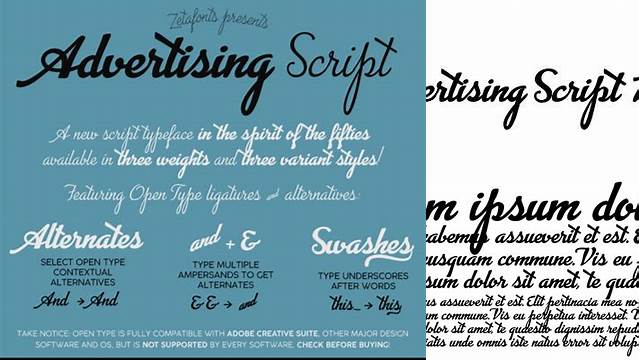
Advertising Script Bold Font: Free Download Guide
Hey guys! Ever felt like your advertisements are just… blah? Like they're getting lost in the noise, failing to grab attention? Well, you're not alone. A killer advertisement isn't just about the message; it's about how you present it. And that's where a bold font can be your secret weapon. In this guide, we're diving deep into advertising script bold font options that you can free download, empowering you to create eye-catching ads that command attention and drive results. We'll explore why bold fonts matter, how to choose the perfect one, and where to find these design treasures without spending a dime. So, buckle up, because we're about to transform your advertising game!
Why Bold Fonts Are Essential for Advertising
Okay, let's be real. In the fast-paced world of advertising, you've got milliseconds to make an impression. Think of it like this: people are scrolling, swiping, and clicking at lightning speed. If your ad doesn't instantly grab their attention, it's gone. Poof! And that's where advertising script bold fonts come in clutch. A bold font is like a visual shout. It says, "Hey, look at me! I'm important!" It's the difference between blending into the background and standing out from the crowd. It's the difference between your message being ignored and being remembered. Seriously, imagine a billboard with a tiny, delicate font. Chances are, no one would even notice it. Now picture that same billboard with a bold, impactful font. Suddenly, it's unmissable. The boldness immediately captures the eye, making people want to know more.
Let's talk psychology for a sec. Bold fonts evoke feelings of confidence, strength, and urgency. They communicate that you're not messing around. You're serious about your message and confident in your product or service. This instant boost in credibility can make all the difference in persuading potential customers. Furthermore, bold fonts are fantastic for creating visual hierarchy. You can use them to emphasize key phrases, call-to-actions, and special offers. This helps guide the viewer's eye, ensuring they get the most important information at a glance. Think about it: a well-designed ad is like a perfectly curated journey. A bold font serves as the signposts, guiding your audience along the path you want them to take. Consider the impact of advertising script bold fonts in different scenarios. On social media, where attention spans are notoriously short, a bold font can make your post stand out amidst the endless scroll. In print ads, a bold font ensures your message is clear and readable, even from a distance. In website design, bold fonts can be used to highlight headlines and important details. The possibilities are endless. By strategically using bold fonts, you can make your advertisements more effective, memorable, and ultimately, more successful. That's what we call a win-win!
Choosing the Right Bold Font for Your Ad Campaign
Alright, so you're sold on the power of bold fonts, but now comes the fun part: choosing the right one. This isn't just about picking a font that looks cool; it's about selecting a font that aligns with your brand, your target audience, and the overall message of your ad campaign. It's an art form, really! Here's the lowdown on how to choose the perfect advertising script bold font.
First, think about your brand personality. Is your brand fun and playful? Maybe a rounded, bubbly bold font would work best. Are you going for a more serious, professional vibe? A clean, sans-serif bold font might be the way to go. Your font choice should reflect who you are as a brand. Next, consider your target audience. What kind of fonts do they typically respond to? What appeals to them? Research their preferences and tailor your font selection accordingly. It's all about speaking their language, visually. Think about the message you want to convey. Do you want to project strength and reliability? A strong, geometric bold font could be your go-to. Are you aiming for a more vintage or retro feel? A stylized, script-based bold font might be perfect. Furthermore, consider the readability of your chosen font, especially when used in advertising. The advertising script bold font you choose must be legible at all sizes. This is especially crucial for billboards, posters, and other large-format ads. You don't want people squinting to decipher your message. Also, think about the context of your ad. Is it digital, print, or both? Certain fonts perform better in different media. Research which fonts render well online and which ones look great on paper. Moreover, when you're exploring advertising script bold font options, remember to test your chosen font in various sizes and layouts. Print out mock-ups or create digital prototypes to see how the font looks in practice. Does it still grab attention? Does it effectively communicate your message? Finally, don't be afraid to experiment! Try out different fonts, combine different font weights, and play around with variations. The perfect font is out there waiting to be discovered. By carefully considering your brand, your audience, your message, and the context of your ad, you can select a bold font that takes your advertising to the next level. Now you know what to look for!
- BeFonts: BeFonts is another excellent website for free advertising script bold font options. They have a wide variety of styles and weights available. It's like a treasure chest of typographic goodies.
- Creative Market (Free Goods): Creative Market is a marketplace for designers, but they often offer freebies, including fonts, every week. Keep an eye out for their free goods, and you might stumble upon a gem of a bold font.
When you download fonts from these resources, always check the license. Some fonts are free for personal use only, while others are free for commercial use. Make sure the license aligns with your project's needs. Also, be sure to download fonts from reputable websites to avoid any malware or security risks. Protect yourselves, guys! By utilizing these free resources, you can access a vast array of advertising script bold fonts without spending a fortune. Go forth, explore, and find the perfect font to elevate your advertising game. Remember, the right font can make all the difference! Happy downloading!
Implementing Bold Fonts in Your Ads
Alright, you've got your amazing bold font, now what? Let's talk about how to implement these beauties into your advertisements. The key is to use bold fonts strategically, to maximize their impact. Here’s how to do it right:
First, use bold fonts for headlines, subheadings, and key phrases. These are the elements you want to stand out the most. Think of them as the focal points of your ad. Use a bold font to capture attention and draw the reader's eye to the most important information. Use bold fonts sparingly. While it's tempting to make everything bold, resist the urge. Overusing bold fonts can actually dilute their impact, making your ad look cluttered and overwhelming. Think of bold fonts as a powerful spice; a little goes a long way. Consider your ad layout. Bold fonts can be used to create visual hierarchy, guiding the reader's eye through the content. Use different font weights and sizes to emphasize different elements. The headline should be the boldest and largest. Subheadings should be slightly less bold, but still impactful. Use bold fonts to highlight call-to-actions. Make it super clear what you want people to do. Whether it's